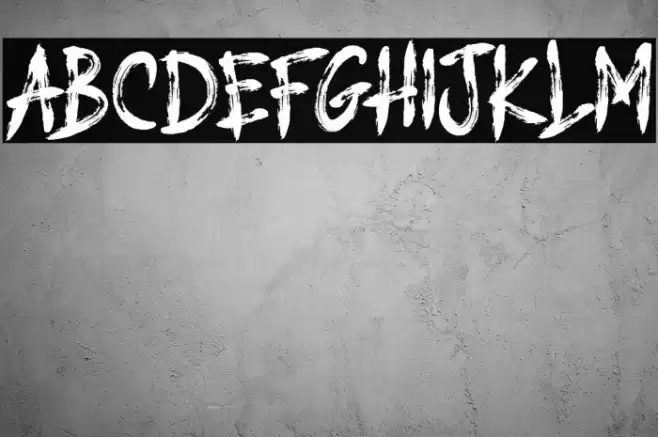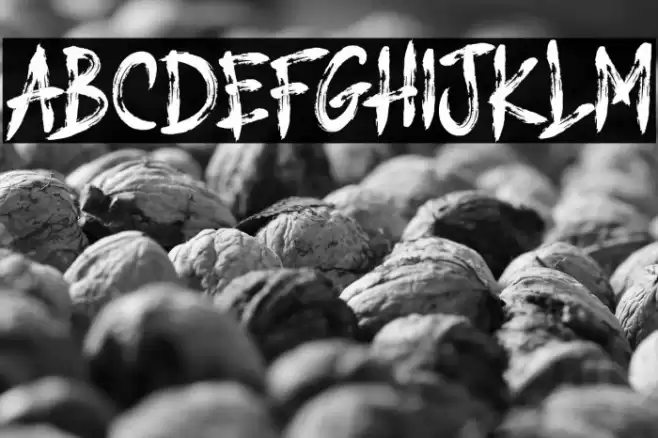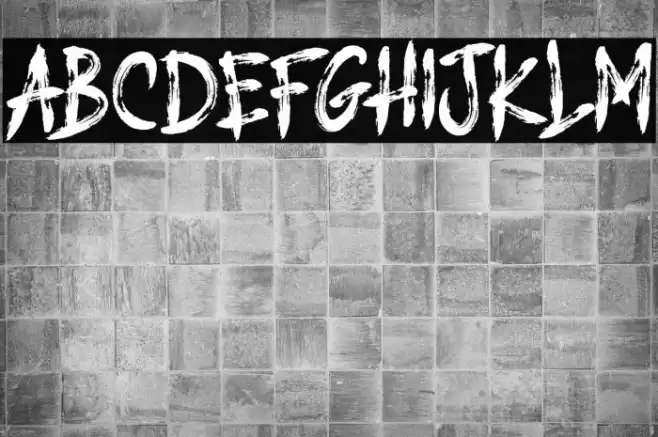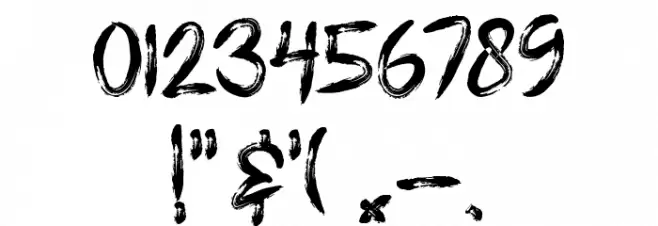
DEAD ATTACK Font
DEAD ATTACK Description
This font features a bold, expressive style with a brush-like texture that gives it a dynamic and energetic appearance. The strokes are uneven and have a hand-painted feel, creating a sense of movement and intensity. The uppercase letters are particularly striking, with their jagged edges and varying stroke widths. The numbers and special characters maintain this energetic style, making the font suitable for attention-grabbing designs. The overall look is raw and edgy, perfect for projects that require a strong visual impact.
A bold, brush-style font with dynamic, energetic strokes from Uncategorized fonts.
- Font: DEAD ATTACK
- Overall Style: Modern, Edgy